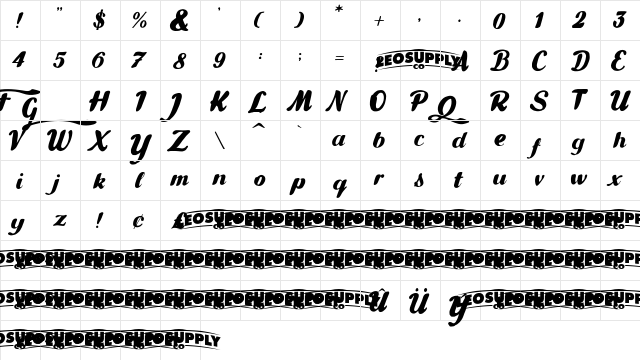
Gullias Font Preview
Gullias Gullias
Gullias Font Details
Design Context for Gullias Typeface
Gullias takes a measured approach to typography — its balanced proportions and neutral character make it a reliable workhorse for both digital and print work.